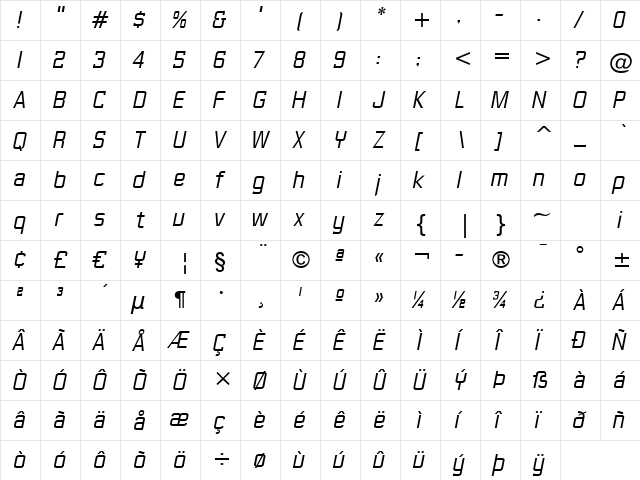
Gasoline Sans BTN Lt Oblique Font Preview
Design Context for Gasoline Sans BTN Lt Typeface
Gasoline Sans BTN Lt is a composed and adaptable typeface that performs quietly and consistently across a wide range of design contexts. The dynamic lean of this cut emphasises speed and emphasis in any layout. Its slender proportions lend an understated elegance to any composition.